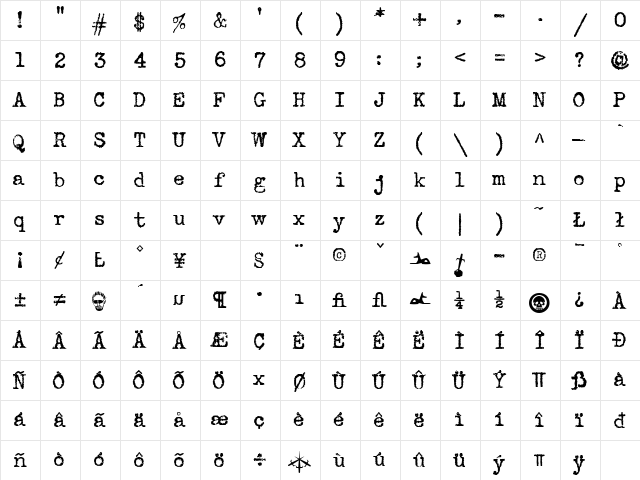
Complete Telepath Medium Regular glyph index. Displaying only characters natively supported by Telepath Medium Regular font.
Telepath Medium is a composed and adaptable typeface that performs quietly and consistently across a wide range of design contexts.
Who designed the Telepath Medium Regular font?